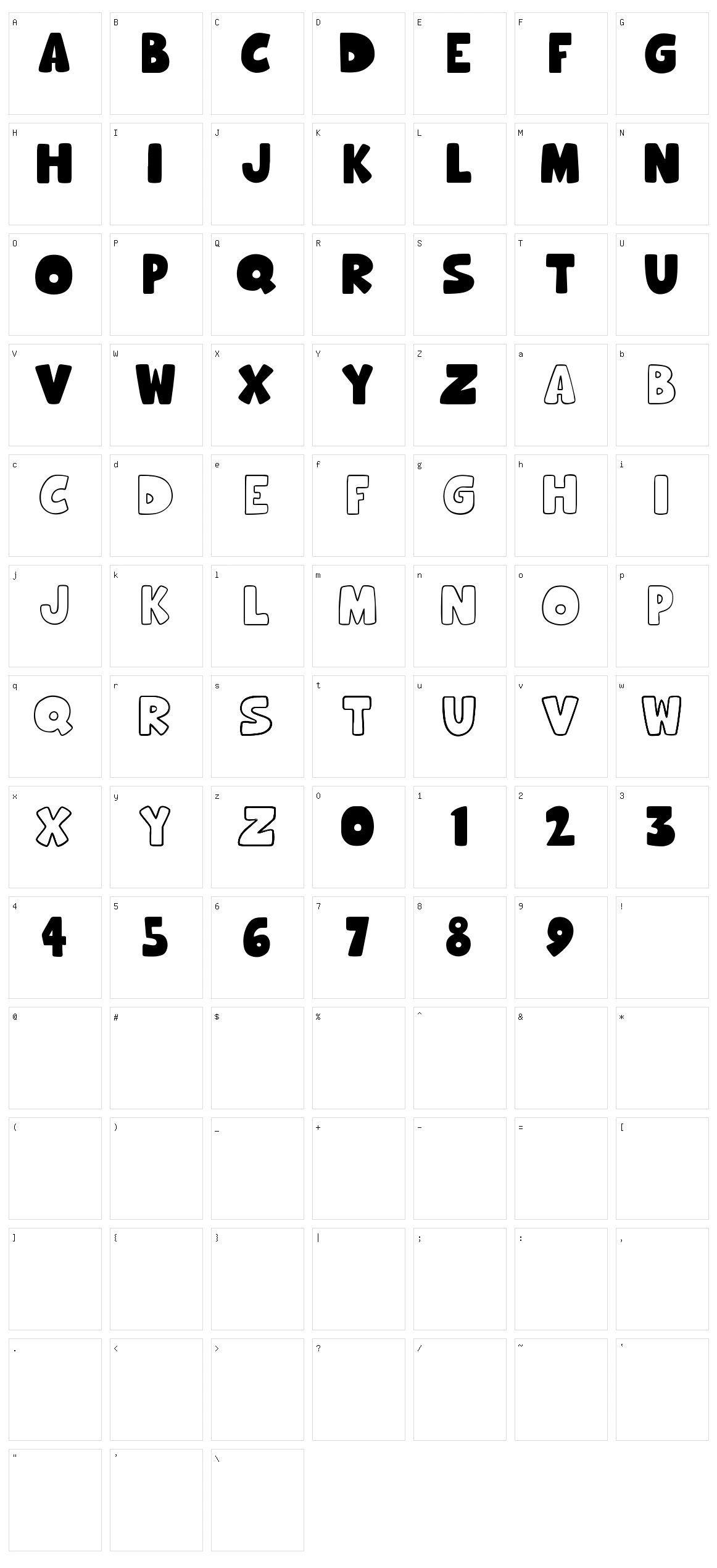
The free font Hooman World is carefully designed by The Docallisme - Amry Al Mursalaat, showcasing a thoughtful balance of creativity and usability and falls under the Cartoon font style. When you download the ZIP file, it contains only 159.17 KB of font files, making it lightweight and quick to download. Please review the license details below to understand permitted usage and distribution rights. If license information is not available, we recommend using this font for personal projects only or contacting the author directly for commercial usage permissions.